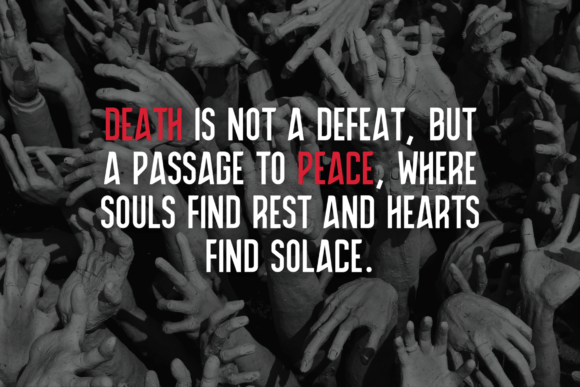
Giant Witch: A Playful Display Font for Editorial Magic
It was a quiet Tuesday afternoon—coffee cooling beside my laptop—when I opened the cover layout for a new digital magazine feature on seasonal rituals. The article explored autumn traditions through personal essays and illustrated folklore, and the tone needed to feel warm, slightly mysterious, and gently whimsical. I’d already set the body text in a soft serif for readability, but the title lingered unplaced. That’s when I reached for Giant Witch.
What struck me first wasn’t just its charm, but how effortlessly it anchored the page’s emotional temperature. Giant Witch is a display font—designed not for paragraphs, but for moments of emphasis and invitation. Each letter carries delicate, curling tails that sway like ink dipped in wind: playful without being childish, magical without tipping into cliché. It doesn’t shout; it leans in with a knowing smile. That subtle rhythm—light, lyrical, lightly asymmetrical—makes it ideal for editorial moments where mood matters as much as meaning.
Where Giant Witch Finds Its Rhythm in Real Layouts
In practice, Giant Witch shines brightest where visual hierarchy meets narrative intention. I’ve used it across several real projects: as the chapter opener for a coaching workbook on intuitive creativity (paired with a neutral sans serif for exercises), as the header for a printable planner’s “Full Moon Reflection” section, and most recently, as the title treatment for a small-batch recipe ebook themed around herbal folklore. In each case, it didn’t just label—it whispered context.
Its personality supports content structure by signaling transition and significance. A pull quote set in Giant Witch, even at 24pt on screen or 36pt in print, draws attention without disrupting flow—especially when surrounded by generous white space and a grounded companion typeface. It works beautifully in newsletter graphics too: think of a seasonal greeting banner or a “New Guide Live” announcement where warmth and approachability are key.
Readability, Responsiveness, and Real-World Limits
Let’s be clear: Giant Witch is not built for long-form reading. Its expressive curves and open counters don’t scale down gracefully—below 18pt on screen or 14pt in print, legibility softens, especially in dense layouts or low-resolution exports. It’s also not suited for captions, navigation menus, data tables, or formal reports where neutrality and precision matter more than personality.
That said, it performs thoughtfully where it’s meant to: as cover text, section headers, worksheet titles, digital magazine mastheads, and decorative accents in PDF course materials. In mobile-first newsletters, I use it sparingly—only for top-of-email banners or featured module headings—and always test rendering across iOS Mail, Gmail, and Outlook. For PDFs intended for print, I embed the font and export as PDF/X-1a to preserve its delicate spacing and tail details.
Pairing With Purpose: Building Cohesive Editorial Identity
A great display font earns its place by how well it partners with others. Giant Witch pairs naturally with warm serifs—think Garamond or Adobe Caslon—for body copy in lifestyle blogs or printed wedding guides. Its organic energy balances beautifully against clean, humanist sans serifs like Lato or Inter for captions, subheads, and UI elements. I avoid pairing it with other highly decorative fonts or tight geometric sans serifs—the contrast becomes jarring rather than complementary.
What makes this pairing work isn’t just aesthetics; it’s functional harmony. The serif or sans serif carries the weight of information; Giant Witch carries the weight of feeling. Together, they create a quiet but distinct brand identity—one that feels handmade, intentional, and quietly confident.
Practical Considerations Before You Install
Before using Giant Witch in client work, templates, or digital products, I always check three things: licensing, file support, and typographic flexibility. It’s a commercial font, so verify whether your license covers web embedding, PDF embedding, or resale in editable templates (like Canva-based planners or Notion workbooks). Most versions include OTF and WOFF2 files, and many offer stylistic alternates—useful for fine-tuning a headline’s balance or avoiding repeated tail directions in adjacent letters.
It doesn’t include extensive language support—no Cyrillic or extended diacritics—so it’s best reserved for English-dominant editorial projects. And while it offers no bold or italic weights (it’s a single-style display font), that limitation is part of its strength: it asks you to use it with restraint and intention, not as a Swiss Army knife.
When Whimsy Serves the Story
There’s a quiet power in choosing a font that doesn’t just say what something is—but helps the reader feel why it matters. Giant Witch does that. It’s not about Halloween alone, though it glows there. It’s about moments that invite pause: the handwritten note tucked inside a wedding guide, the title of a reflection prompt in a mindfulness workbook, the banner welcoming readers to a blog’s autumn series.